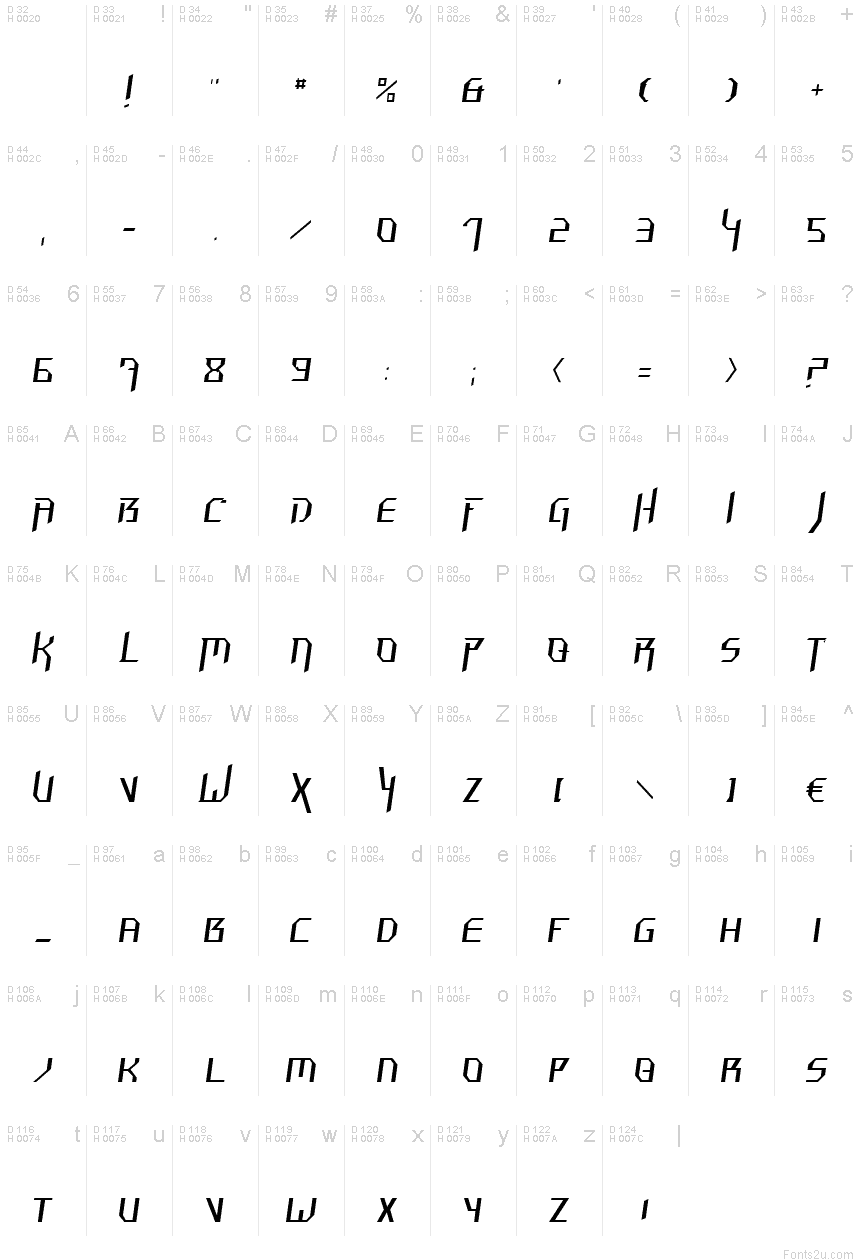
Hammerhead Thin Italic
Hammerhead Thin Italic font by Dieter Schumacher is a free techno futuristic typeface. Every letter leans forward with a sharp, aerodynamic slant, like it’s been sliced out of metal and set in motion. The thin, angular strokes and squared corners create a clean, mechanical rhythm that feels both retro‑digital and distinctly sci‑fi, making the Hammerhead Thin family stand out in any bold visual system.
Using Hammerhead Thin Italic, you get a wired, high‑energy look that shines on game logos, club flyers, tech event branding, sci‑fi posters, music cover art, and motion graphics titles. Its narrow footprint lets you stack dramatic headlines into tight spaces without losing legibility. This free font works beautifully when you pair it with a simple geometric sans at smaller sizes to keep body text calm while the titles race ahead.
designed by Dieter Schumacher 1999